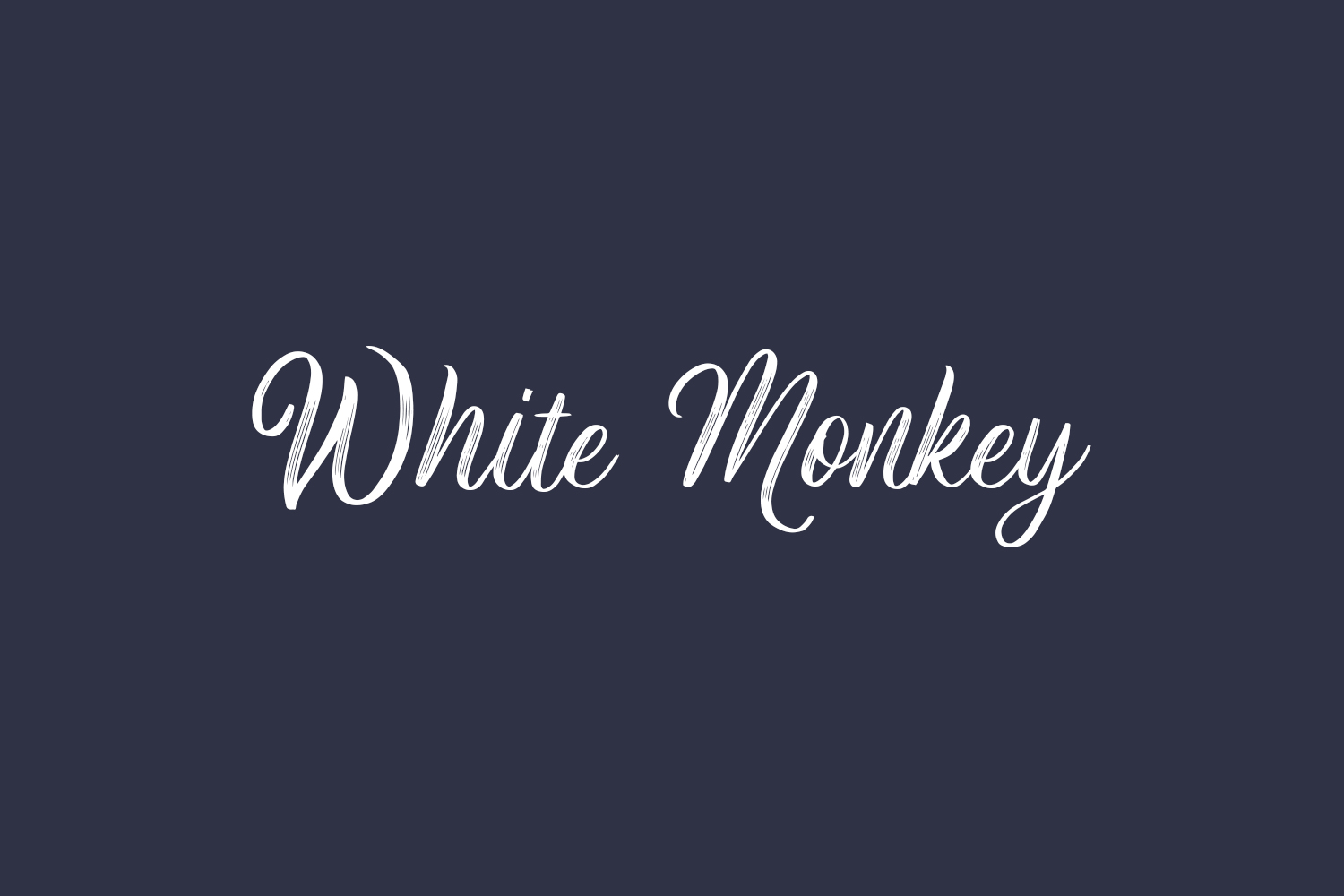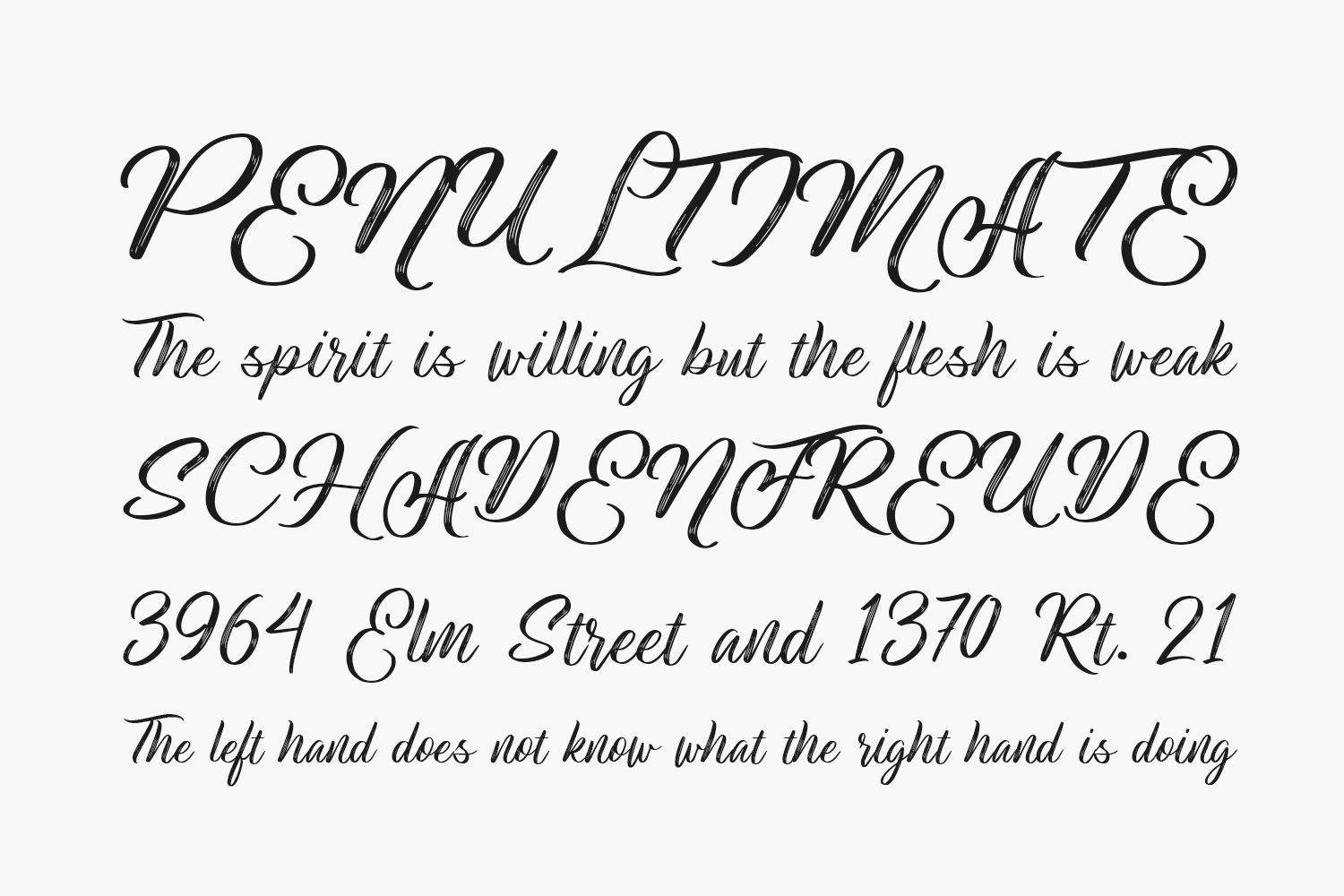
White Monkey Free Font is a lovely and delicate script font that exudes elegance and class. This font was particularly crafted for those who need a beautiful and refreshing look to their designs. White Monkey Free Font was designed by Alit Design and is free for personal use only. Please purchase the full version for commercial use.
Designed by Alit Design